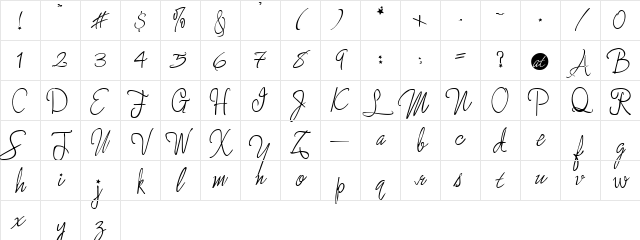
More Enchanted Prairie Dog Regular
Design Context for More Enchanted Prairie Dog
More Enchanted Prairie Dog is a composed and adaptable typeface that performs quietly and consistently across a wide range of design contexts.
Pro Tip: Use More Enchanted Prairie Dog in both headline and body roles to test its range before committing to a single application.